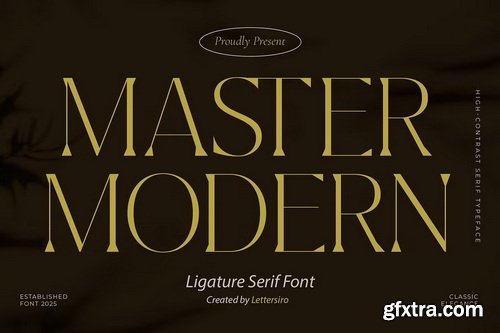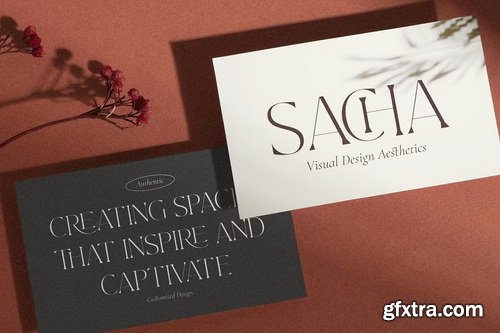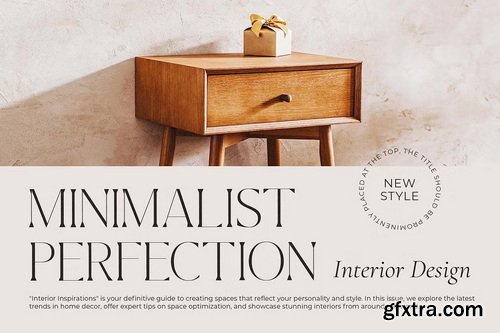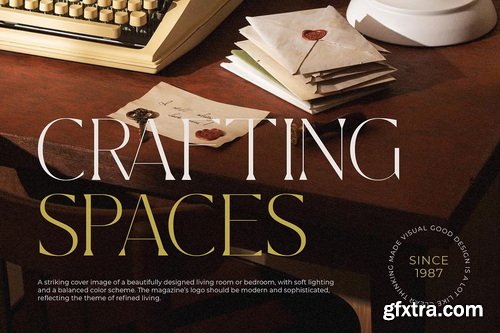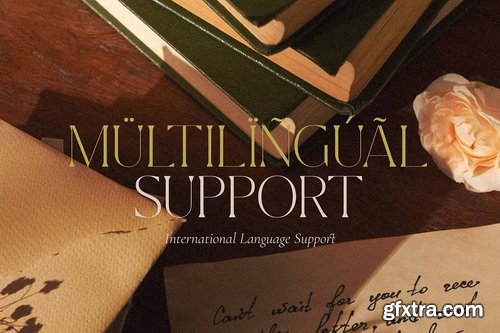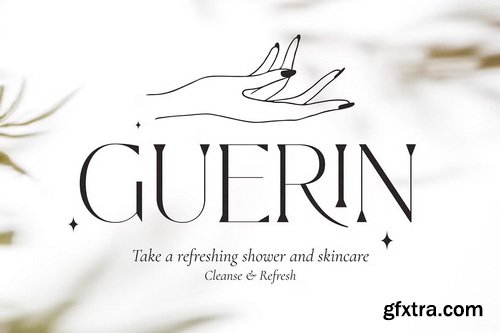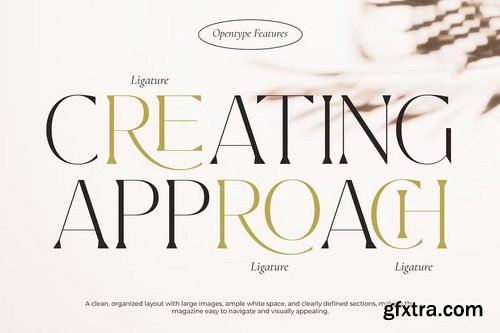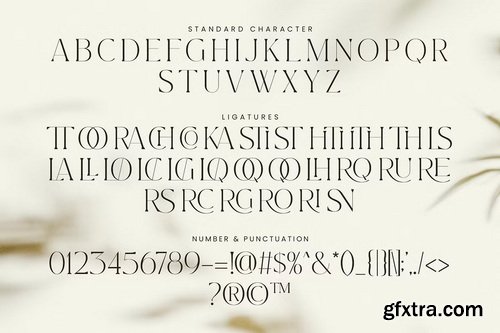
- Master Modern is a high-contrast serif font with a refined and elegant style, designed to bring a sophisticated edge to your branding and design projects. Its clean lines and sharp curves create a timeless look, while the addition of 29 unique ligatures adds creativity and distinctiveness to every word you type.
- Perfectly suited for logos, headlines, magazine titles, and modern branding, Master Modern blends a classic serif foundation with contemporary flair, making it versatile for both print and digital applications. Whether you’re crafting a bold editorial spread or designing an exclusive brand identity, this typeface delivers both style and functionality.